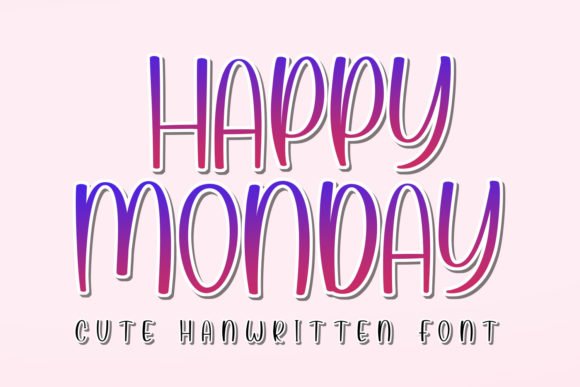
Introduction to Happy Monday Font
Happy Monday is a cute and playful display font.
It is defined by smooth curves and is perfect for fashion branding or editorial designs Add it confidently to your projects, and you will love the results.
Why Choose Happy Monday Font?